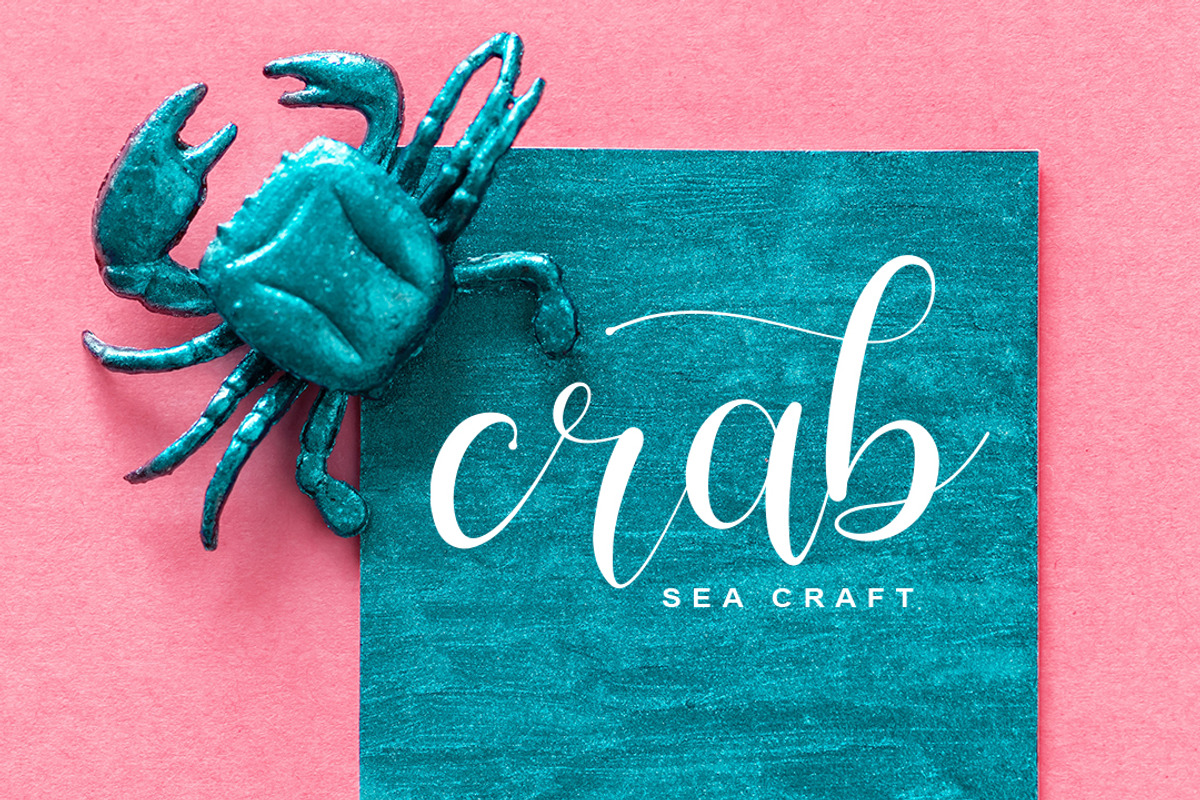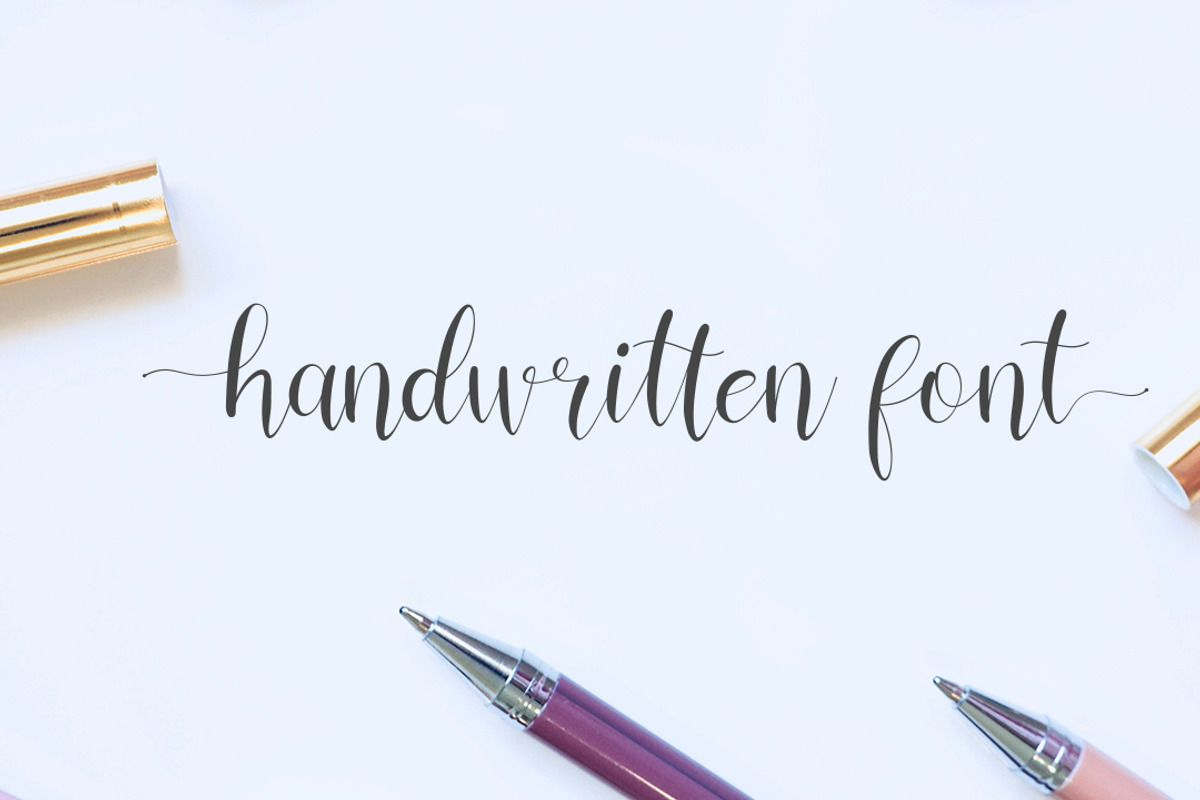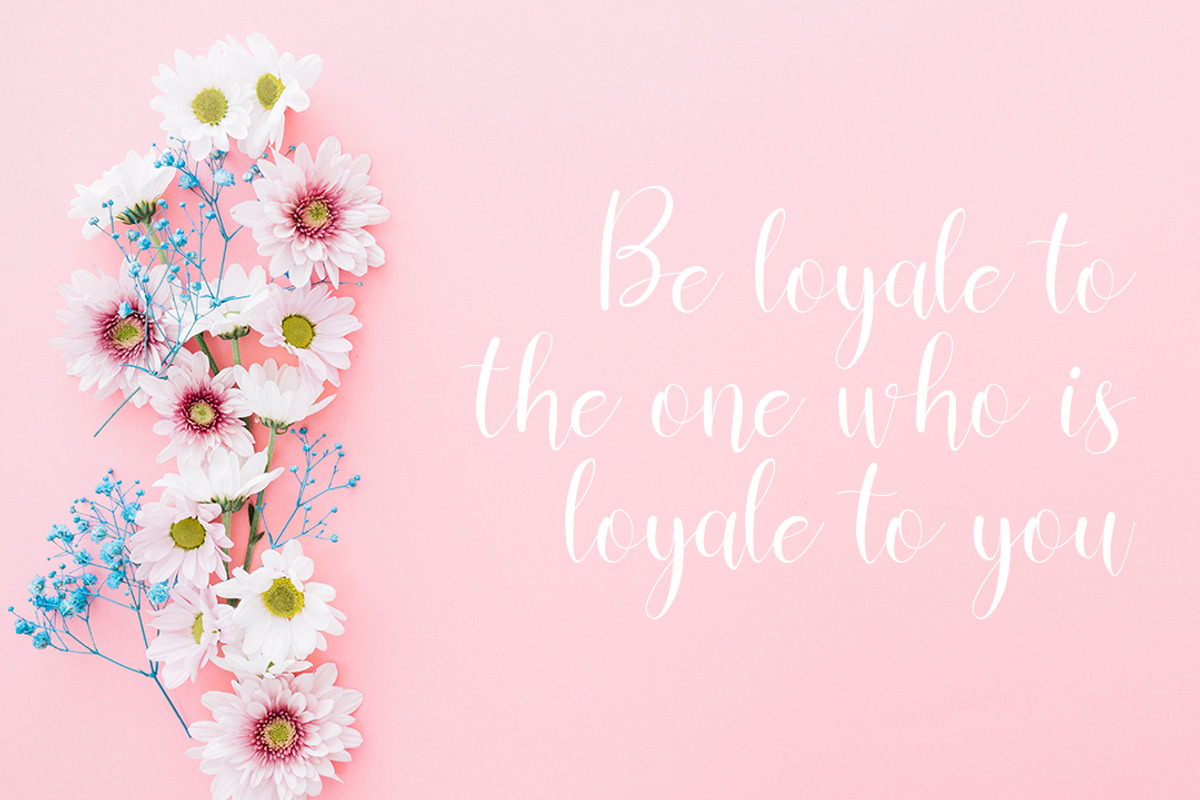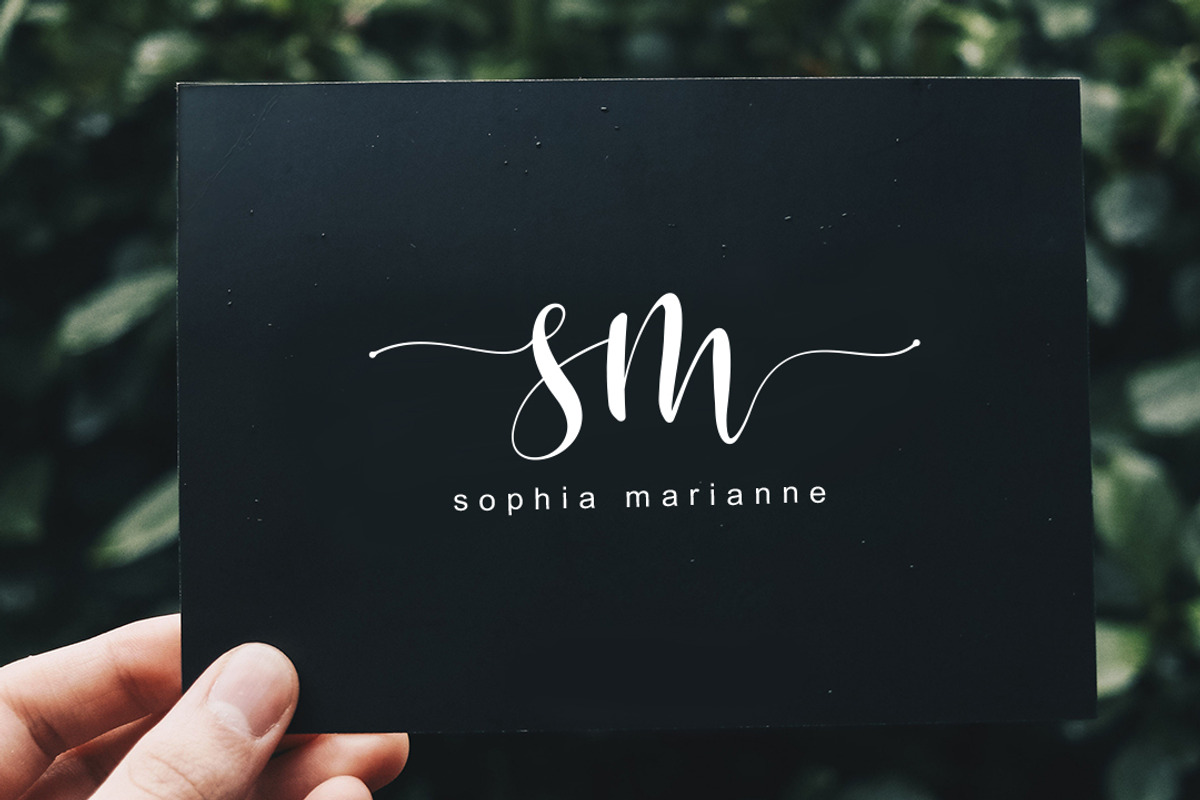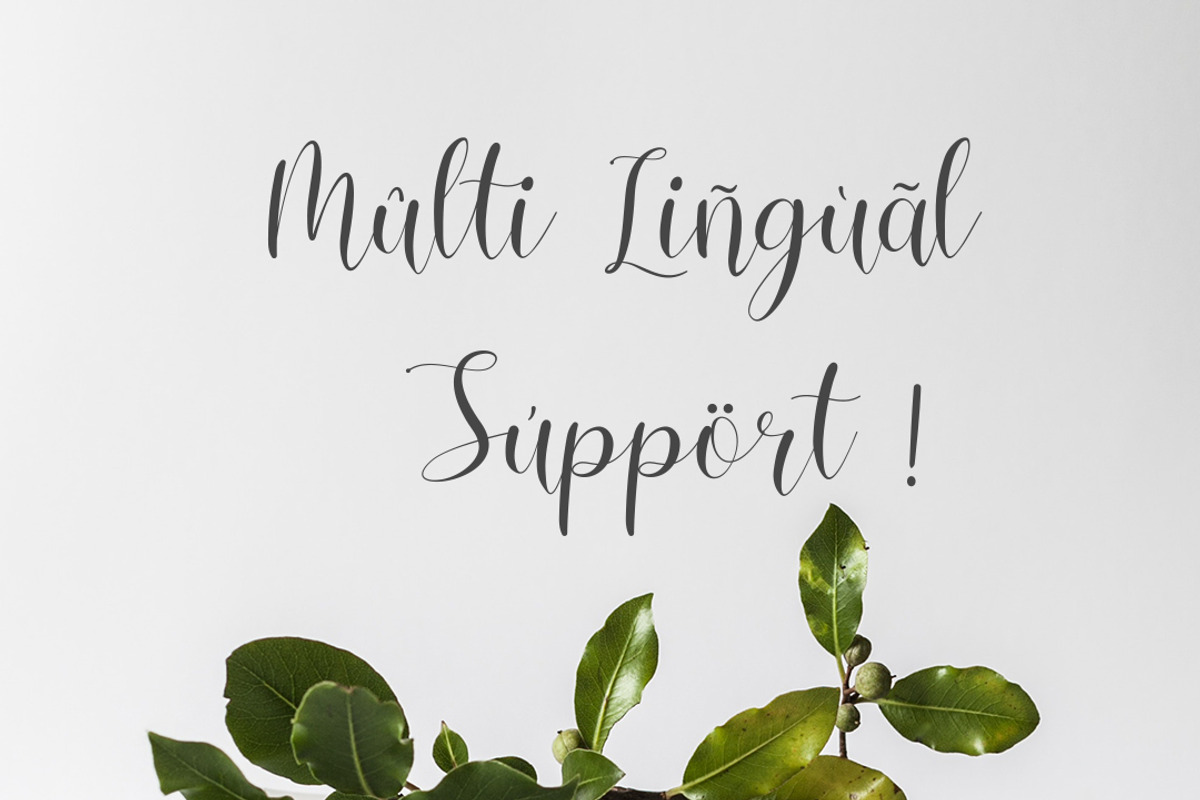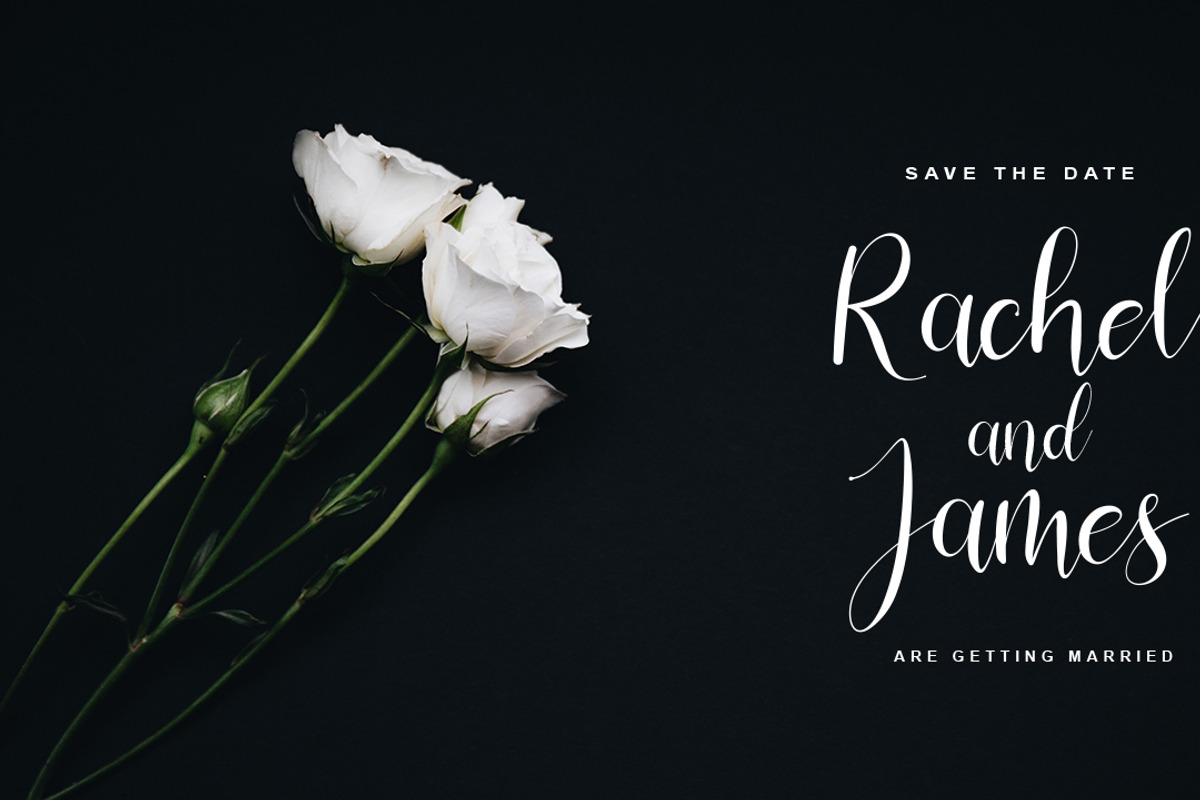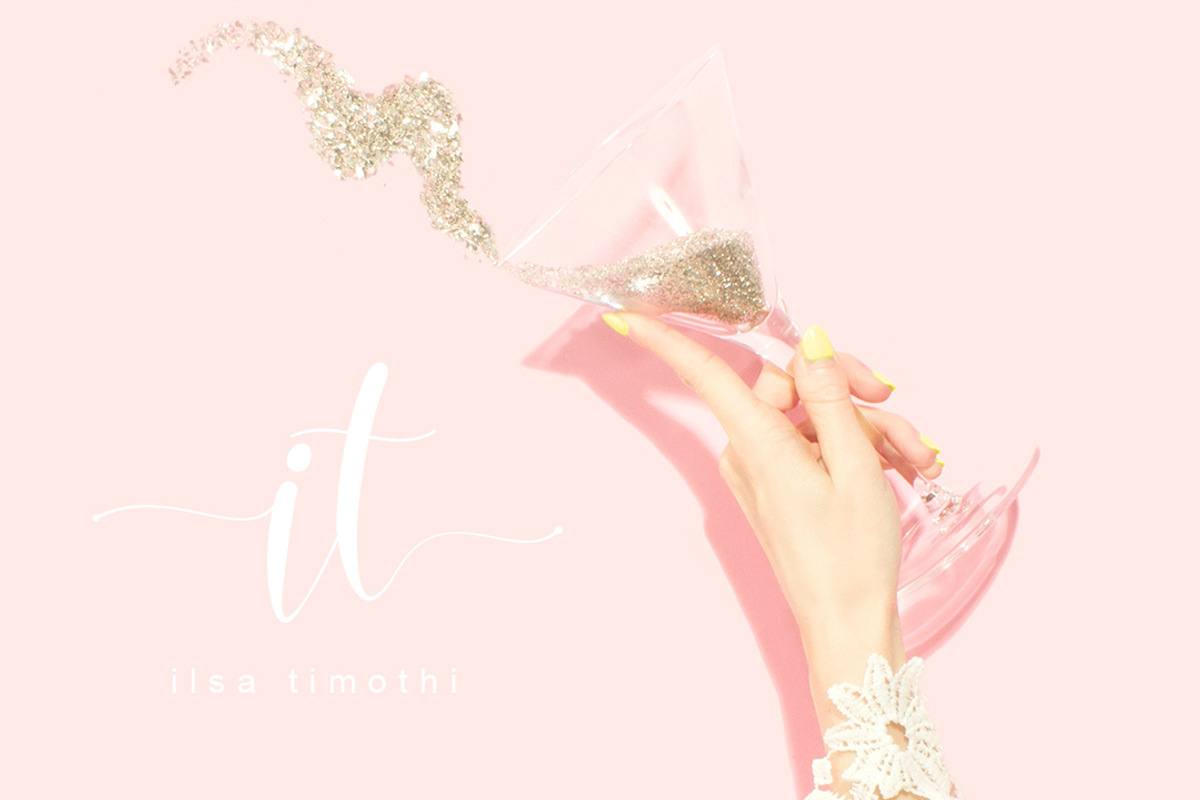
Vessia a lovely script font
Vessia a lovely script font - a new modern & fresh script with a handwritten and script style make this font looks cute, elegant, stylish and perfect for any awesome projects that need lettering taste.
Vessia would perfect for watermark, social media posts, advertisements, logos & branding, invitation, product designs, label, stationery, wedding designs, product packaging, special events or anything that need lettering taste.
Vessia also includes full set of uppercase and lowercase letters, multilingual symbols, numerals, punctuation. The font has smooth wet ink texture, so would be perfect for all types of printing techniques+you can do embroidery, laser cut, gold foil etc.
- Vessia also includes full set of uppercase and lowercase letters, multilingual symbols, numerals, punctuation.
- ligature alternate start alternate back multi lingual